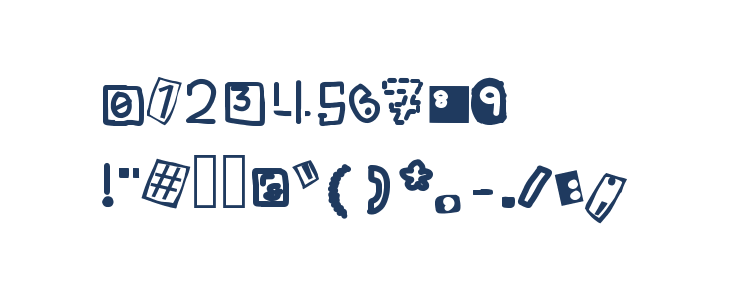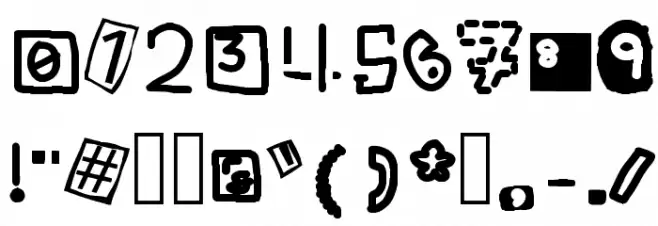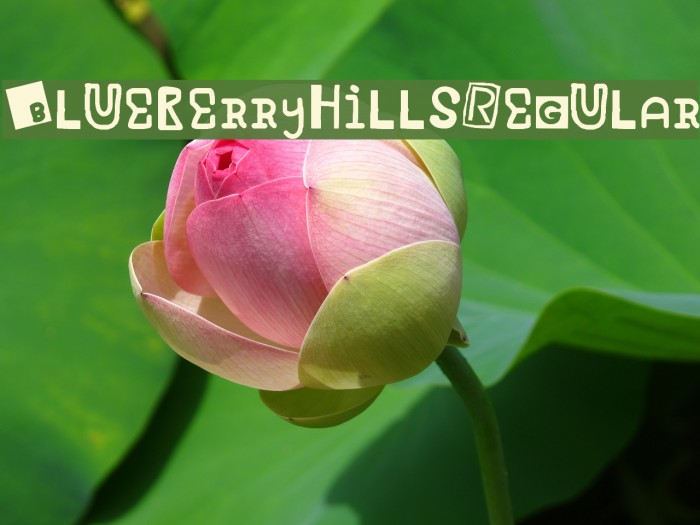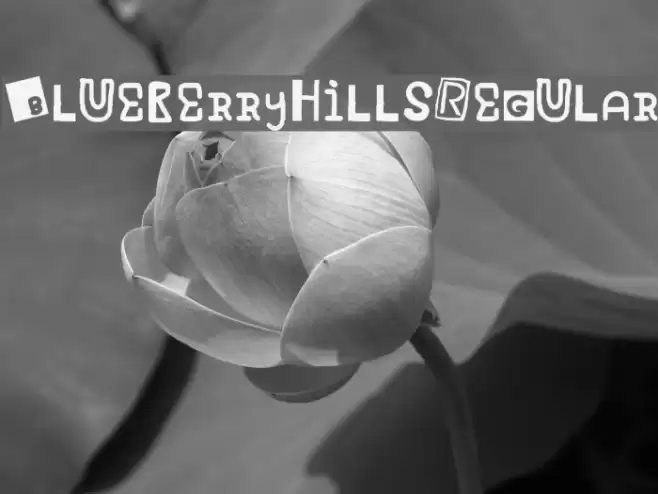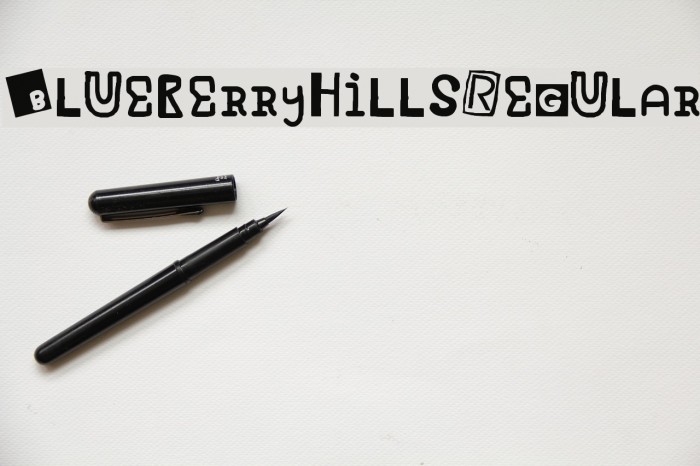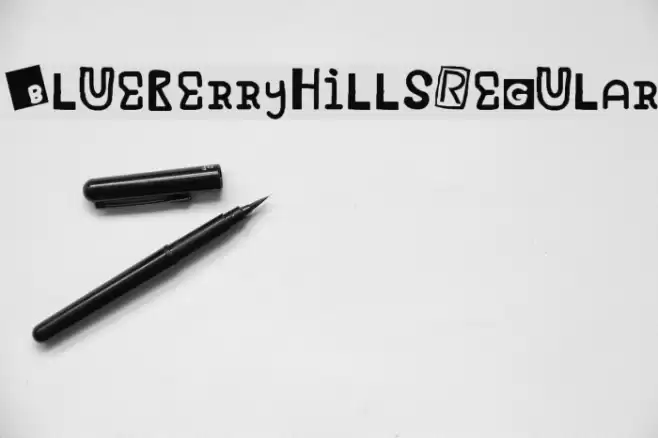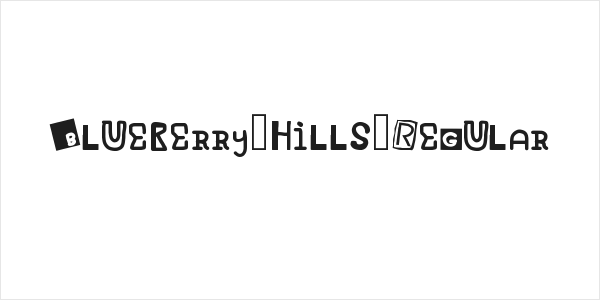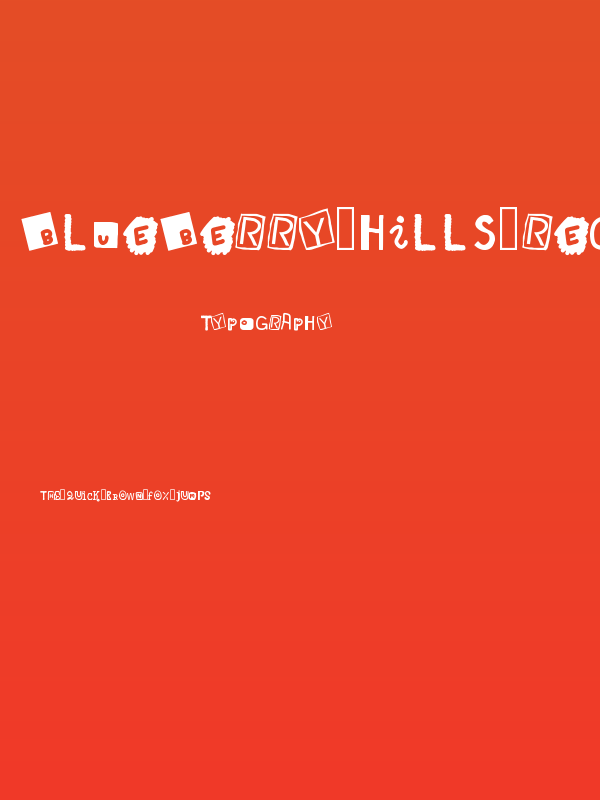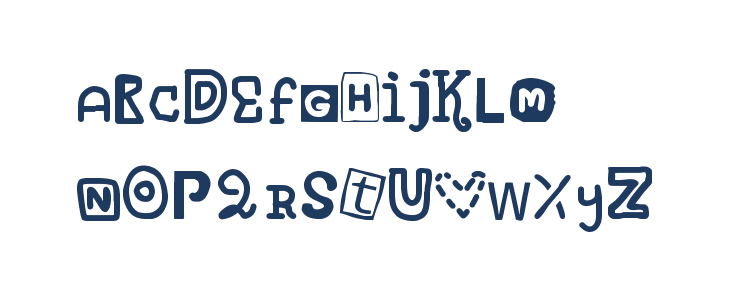
Blueberry Hills Regular Font
Blueberry Hills Regular Description
This font is a playful and eclectic mix of styles, with each character appearing as if it has been cut from a different source. The uppercase and lowercase letters, as well as numbers and special characters, are presented in a variety of bold, quirky designs. Some letters are enclosed in squares, others have jagged edges or unique embellishments, creating a collage-like effect. This font exudes a sense of fun and creativity, making it ideal for projects that require a distinctive and eye-catching look.